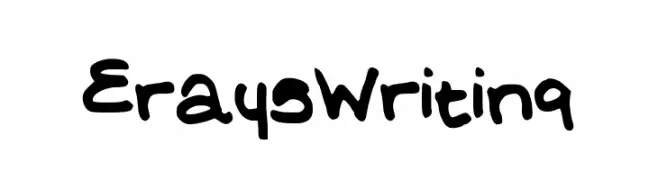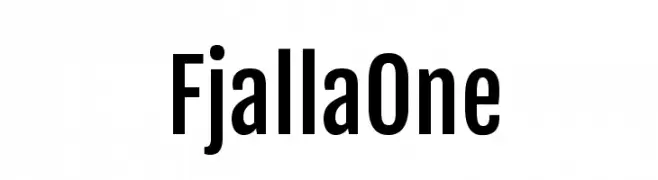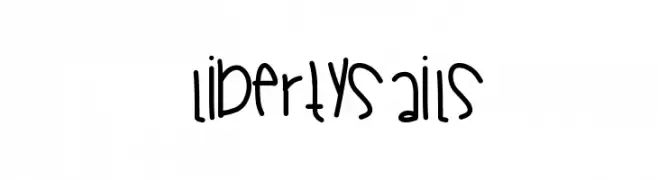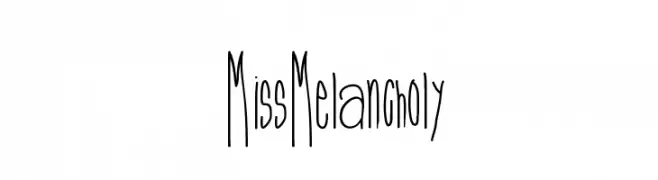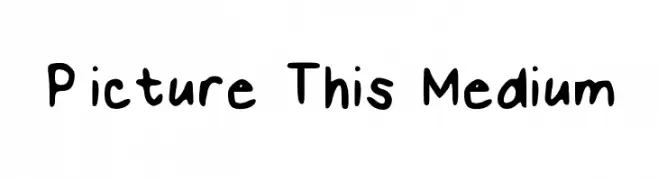
A bold, impactful typeface with thick strokes and strong presence.
A bold, modern sans-serif font with clean lines and a strong presence.
A bold, modern sans-serif font with a clean and assertive style.
A playful, handwritten font with a casual and friendly style.
A tall, narrow, and whimsical font with thin, consistent strokes.